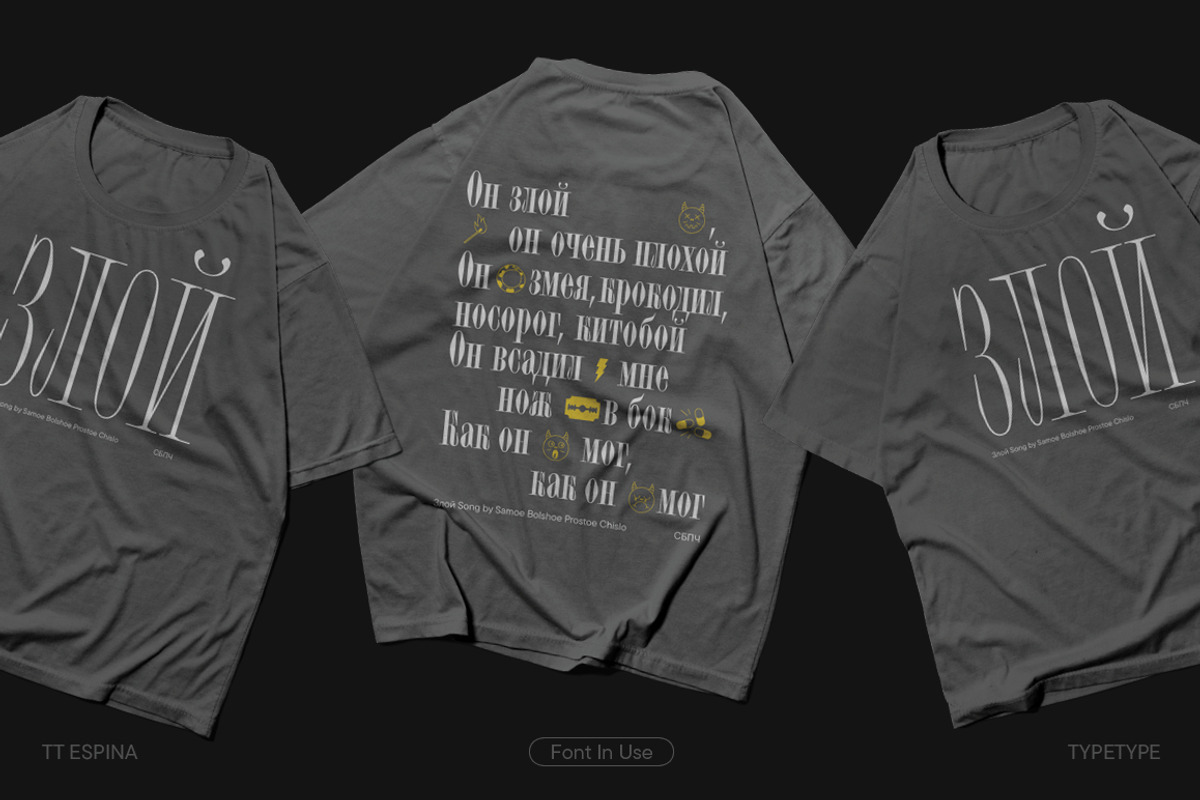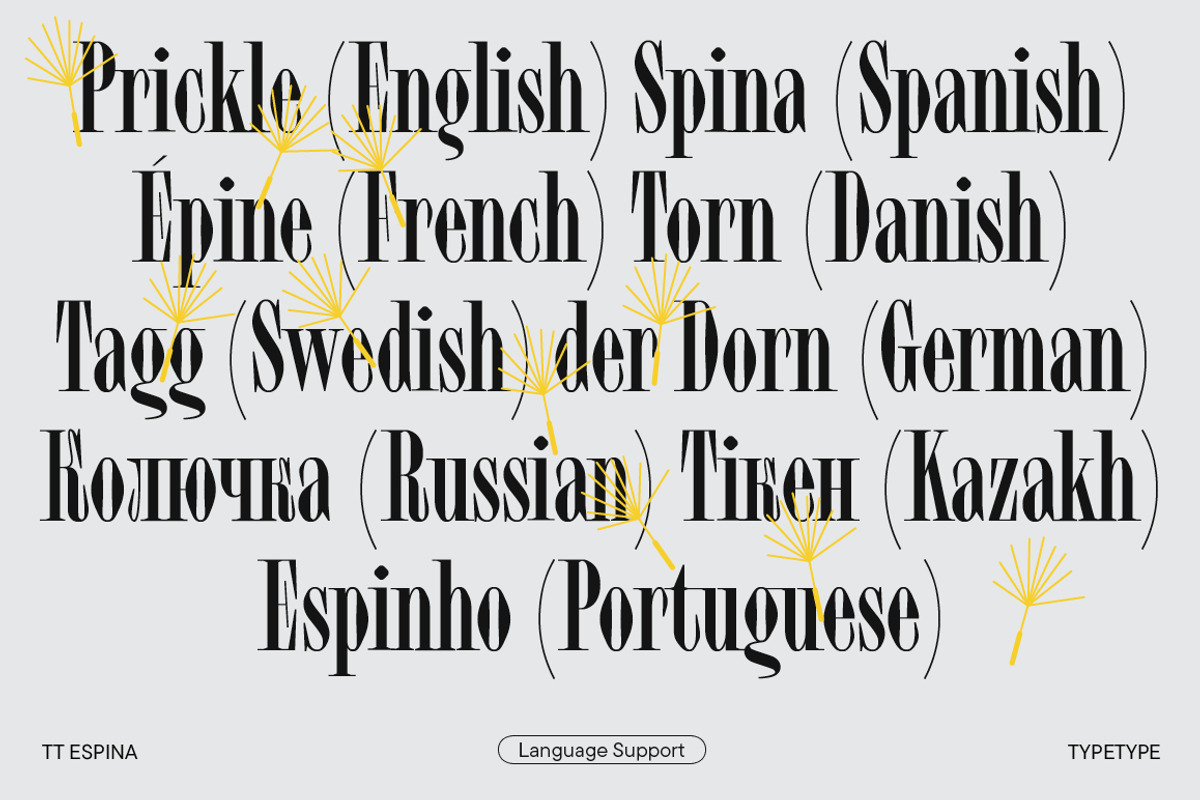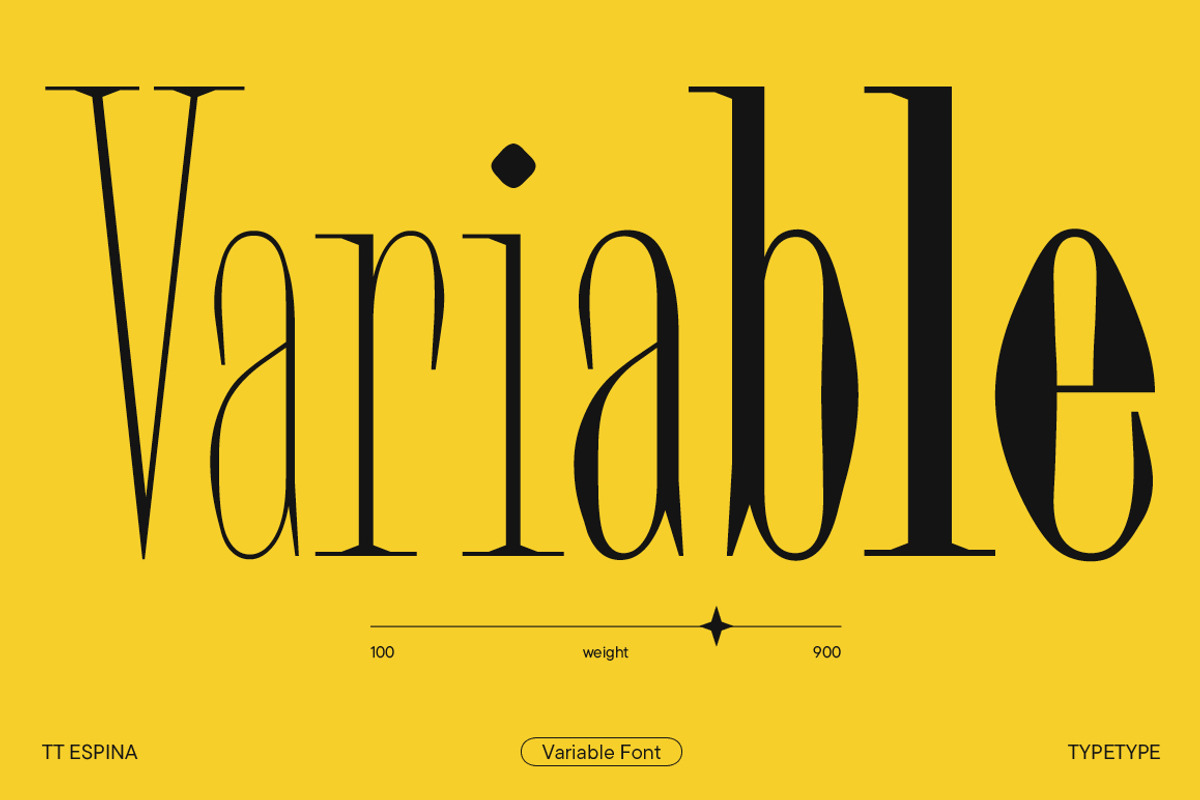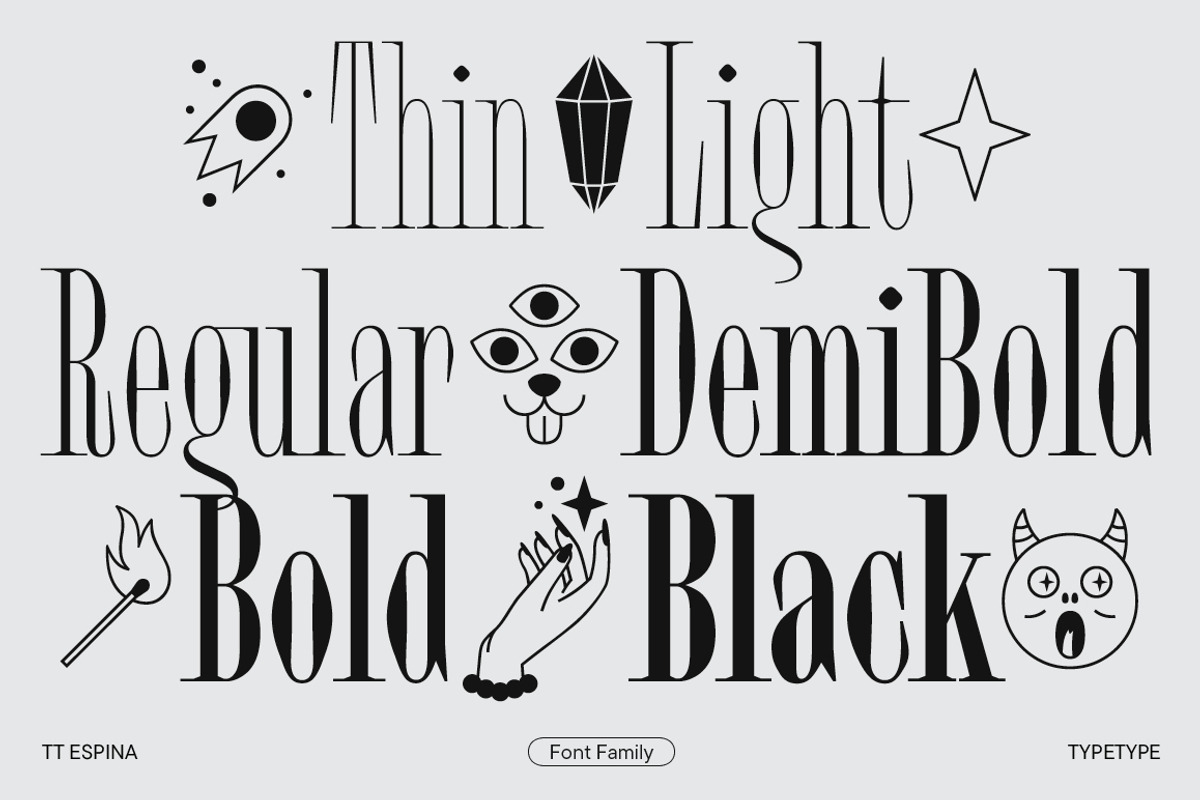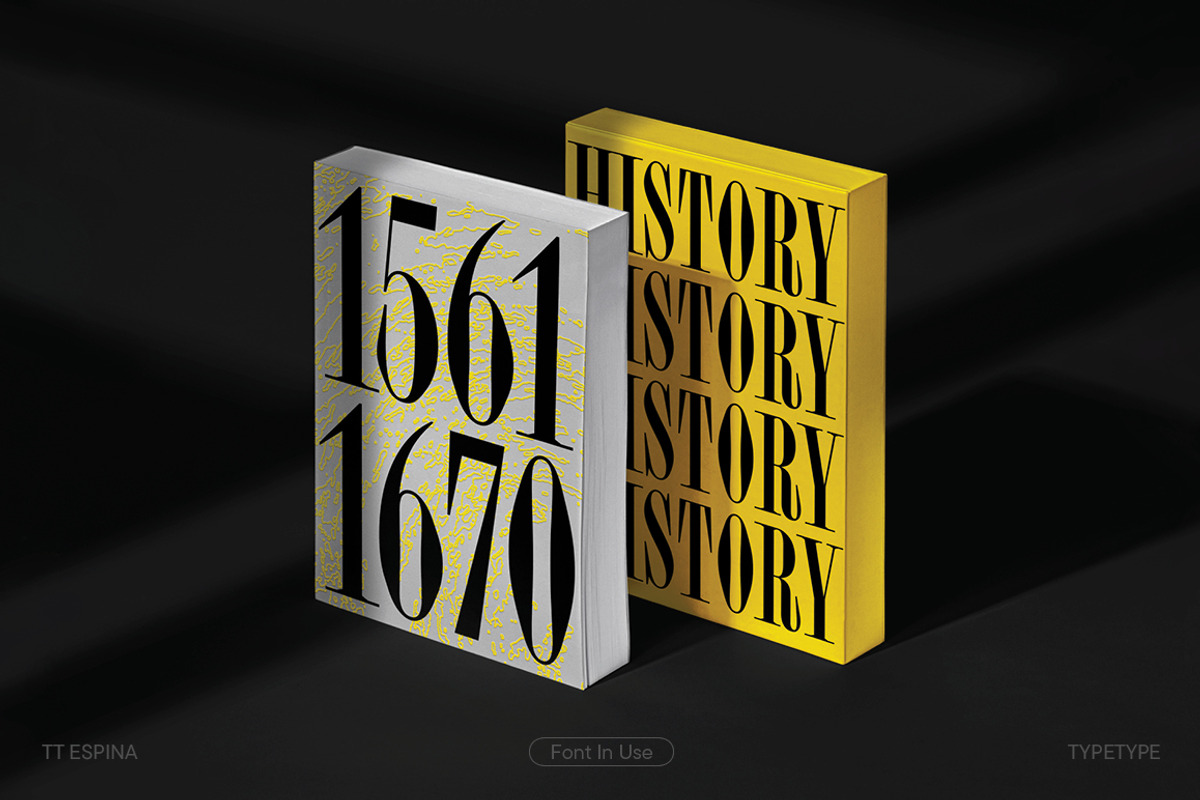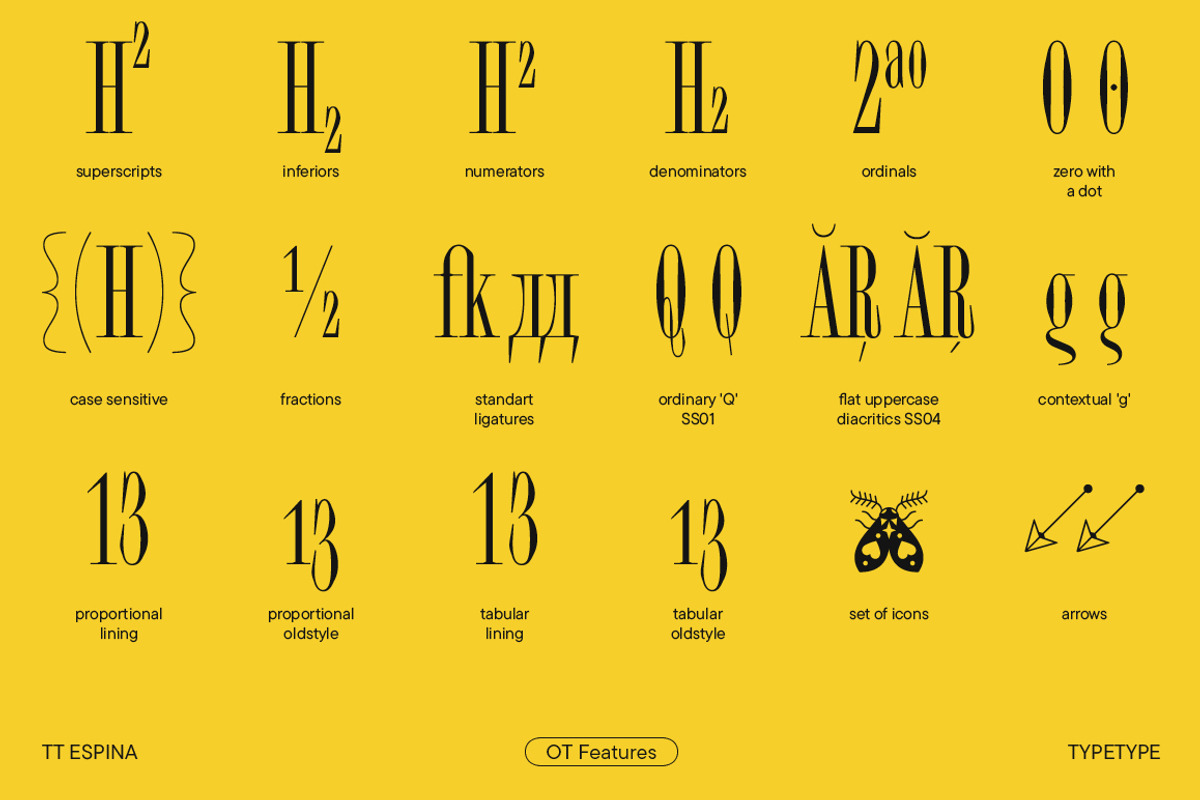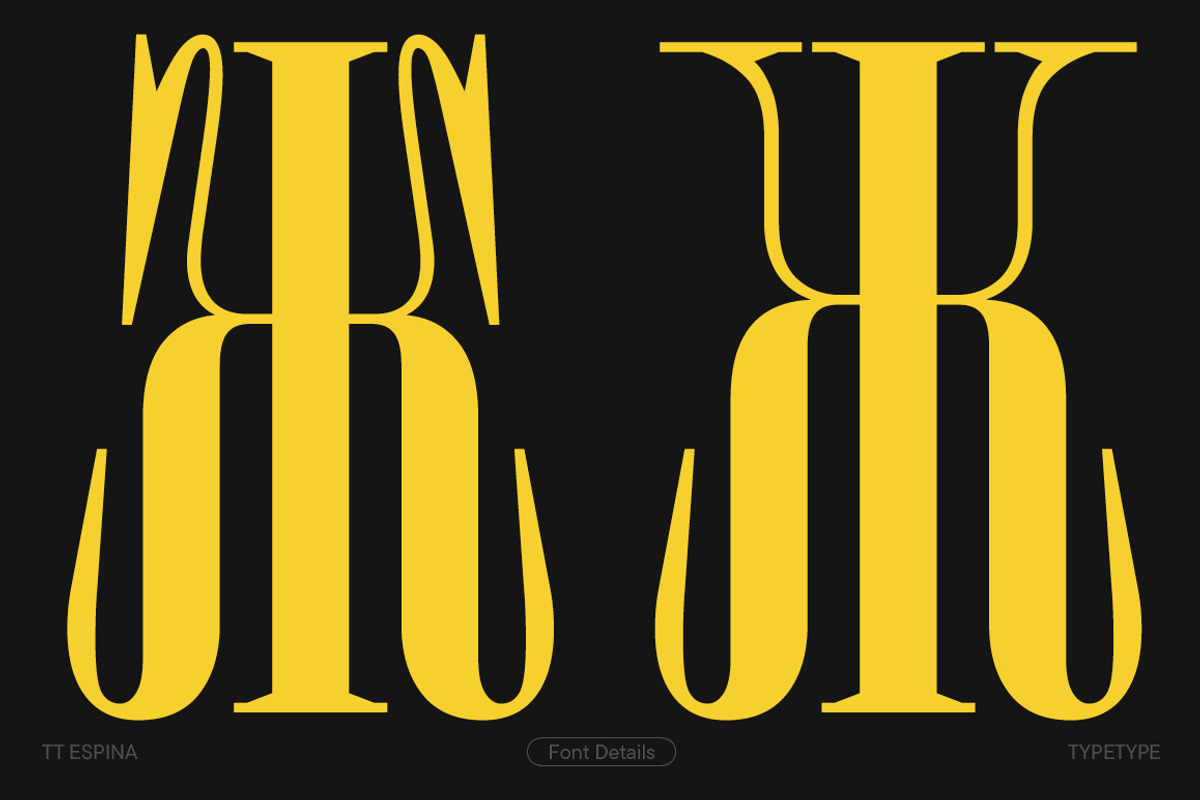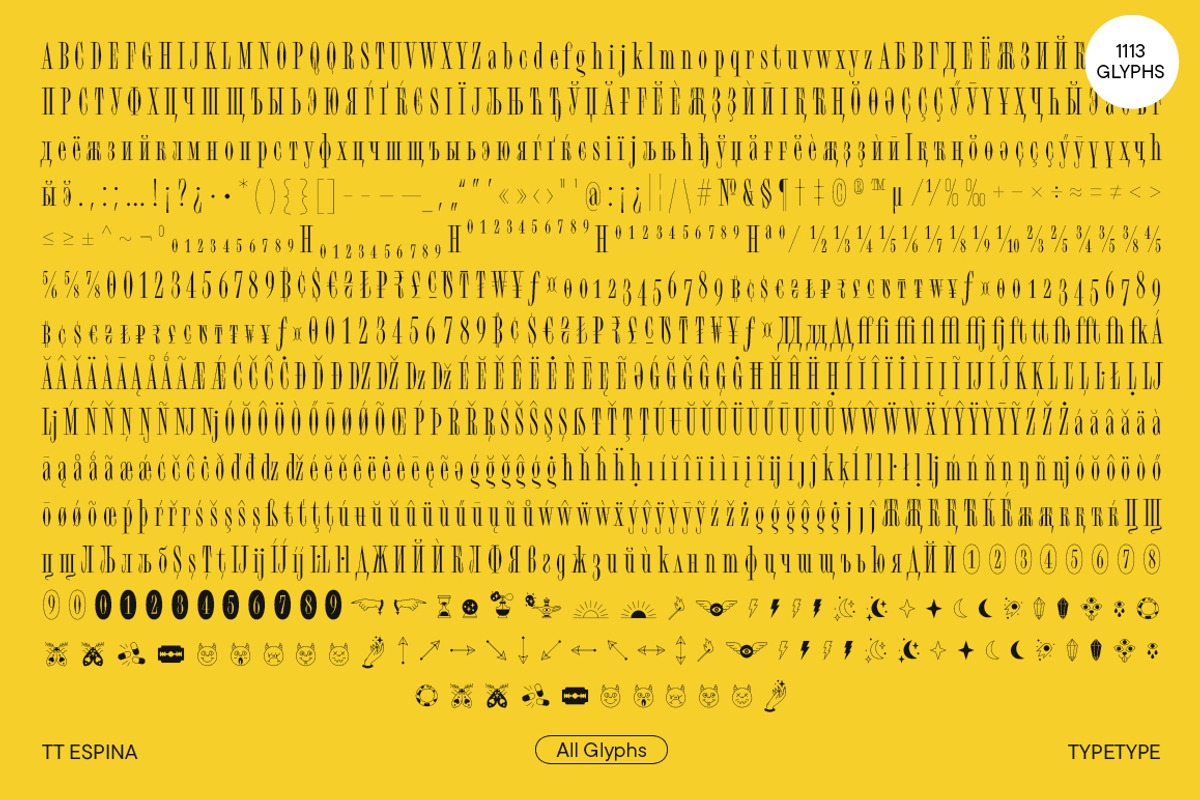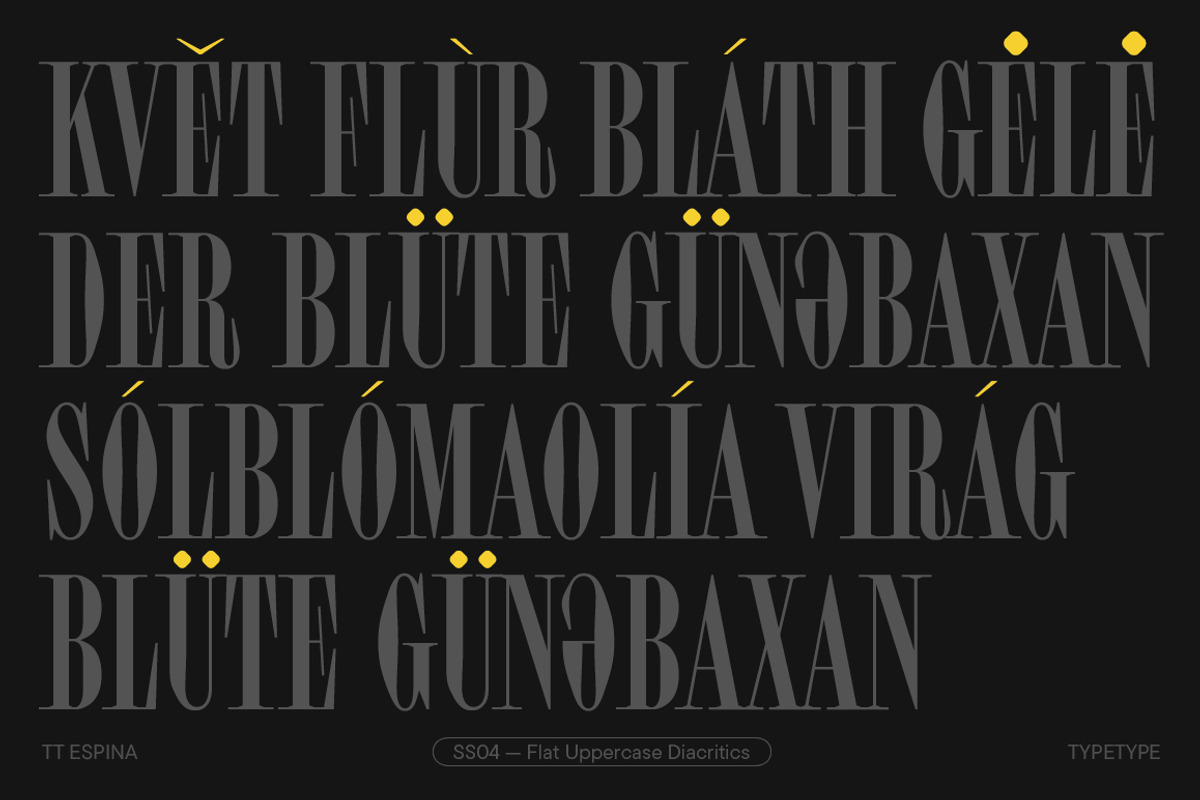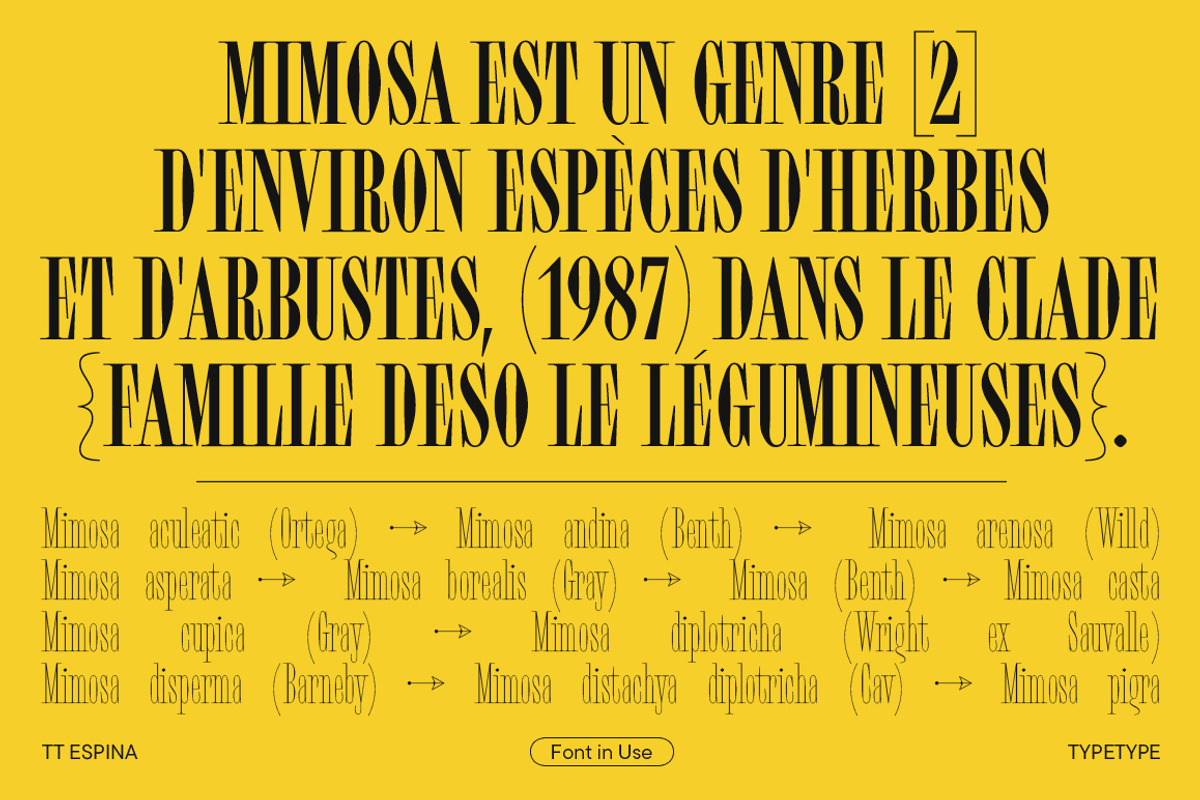
TT Espina
The display TT Espina typeface has been updated and now supports Cyrillic-based alphabets!
The 2.000 version boasts thoroughly revised kerning, enhanced hinting, more OpenType features, an extended character set, and new stylistic sets.
TT Espina is a display Antiqua with expressive serifs. To create it, our designers drew inspiration from the historical form of the letter O that acquired a rhomboid shape during the printing process quality. The final product is a modern typeface with high contrast between horizontal and vertical strokes.
TT Espina is yet another proof that serifs can be stylish and expressive display fonts suitable for contemporary projects. This font is an excellent choice for poster headlines, billboards, gallery and exhibition designs, large-format printed materials, and websites.
TT Espina stands out among other Antiquas due to its narrow proportions, high contrast, expressive and large serifs, closed aperture, and diamond-shaped bowls. Narrow characters add a unique aesthetic to the font. Each character in TT Espina attracts attention, making the headlines typed in it particularly eye-catching. Designers will appreciate the large set of icons the font includes.
The updated release features improved and extended kerning; refined hinting for each character; additional glyphs for the extended Cyrillic and Latin-based alphabets; a larger base and minuscule sets of currency symbols; fractions and numbers for numerators and denominators; new stylistic sets for Cyrillic-based scripts, the dotted zero symbol, and filled and unfilled negative circled digits.
TT Espina, version 2.000, includes:
- 7 font styles: 6 roman and one variable font;
- 1113 glyphs in each font style;
- 38 OpenType features, counting in the possibility to transform shapes of certain characters and substitute high-diacritic characters with their low-diacritic counterparts, which is convenient for designing posters with dense inter-line spacing;
- 230+ languages support.